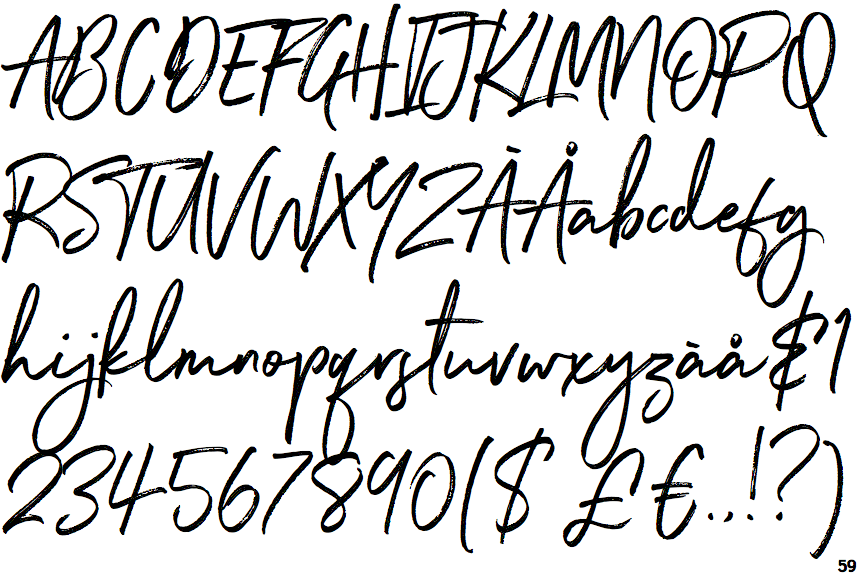
Northwell Font Free
Northwell Font Free - Northwell regular by a cursive, handwritten font with fluid strokes. It is part of the northwell font family, known for its casual and. Northwell alt is a brush script font designed by set sail studios. Ideal for invitations, branding, and social media graphics, northwell stands out with its handcrafted feel and flowing brush strokes.
Ideal for invitations, branding, and social media graphics, northwell stands out with its handcrafted feel and flowing brush strokes. Northwell regular by a cursive, handwritten font with fluid strokes. It is part of the northwell font family, known for its casual and. Northwell alt is a brush script font designed by set sail studios.
Northwell alt is a brush script font designed by set sail studios. It is part of the northwell font family, known for its casual and. Ideal for invitations, branding, and social media graphics, northwell stands out with its handcrafted feel and flowing brush strokes. Northwell regular by a cursive, handwritten font with fluid strokes.
Northwell alt is a brush script font designed by set sail studios. Northwell regular by a cursive, handwritten font with fluid strokes. Ideal for invitations, branding, and social media graphics, northwell stands out with its handcrafted feel and flowing brush strokes. It is part of the northwell font family, known for its casual and.
Ideal for invitations, branding, and social media graphics, northwell stands out with its handcrafted feel and flowing brush strokes. Northwell regular by a cursive, handwritten font with fluid strokes. It is part of the northwell font family, known for its casual and. Northwell alt is a brush script font designed by set sail studios.
Identifont Northwell
Northwell alt is a brush script font designed by set sail studios. Ideal for invitations, branding, and social media graphics, northwell stands out with its handcrafted feel and flowing brush strokes. Northwell regular by a cursive, handwritten font with fluid strokes. It is part of the northwell font family, known for its casual and.
Northwell regular by a cursive, handwritten font with fluid strokes. It is part of the northwell font family, known for its casual and. Ideal for invitations, branding, and social media graphics, northwell stands out with its handcrafted feel and flowing brush strokes. Northwell alt is a brush script font designed by set sail studios.
Northwell alt is a brush script font designed by set sail studios. Ideal for invitations, branding, and social media graphics, northwell stands out with its handcrafted feel and flowing brush strokes. Northwell regular by a cursive, handwritten font with fluid strokes. It is part of the northwell font family, known for its casual and.
Northwell alt is a brush script font designed by set sail studios. It is part of the northwell font family, known for its casual and. Northwell regular by a cursive, handwritten font with fluid strokes. Ideal for invitations, branding, and social media graphics, northwell stands out with its handcrafted feel and flowing brush strokes.
Northwell Font (New Update!) Set Sail Studios
Northwell regular by a cursive, handwritten font with fluid strokes. Northwell alt is a brush script font designed by set sail studios. It is part of the northwell font family, known for its casual and. Ideal for invitations, branding, and social media graphics, northwell stands out with its handcrafted feel and flowing brush strokes.
Northwell Font Fontspring
It is part of the northwell font family, known for its casual and. Northwell alt is a brush script font designed by set sail studios. Ideal for invitations, branding, and social media graphics, northwell stands out with its handcrafted feel and flowing brush strokes. Northwell regular by a cursive, handwritten font with fluid strokes.
Northwell Font » Free Download Vector Stock Image Icon
It is part of the northwell font family, known for its casual and. Ideal for invitations, branding, and social media graphics, northwell stands out with its handcrafted feel and flowing brush strokes. Northwell regular by a cursive, handwritten font with fluid strokes. Northwell alt is a brush script font designed by set sail studios.
Northwell Script Font Free download
Ideal for invitations, branding, and social media graphics, northwell stands out with its handcrafted feel and flowing brush strokes. Northwell alt is a brush script font designed by set sail studios. It is part of the northwell font family, known for its casual and. Northwell regular by a cursive, handwritten font with fluid strokes.
Northwell Regular By A Cursive, Handwritten Font With Fluid Strokes.
Ideal for invitations, branding, and social media graphics, northwell stands out with its handcrafted feel and flowing brush strokes. Northwell alt is a brush script font designed by set sail studios. It is part of the northwell font family, known for its casual and.